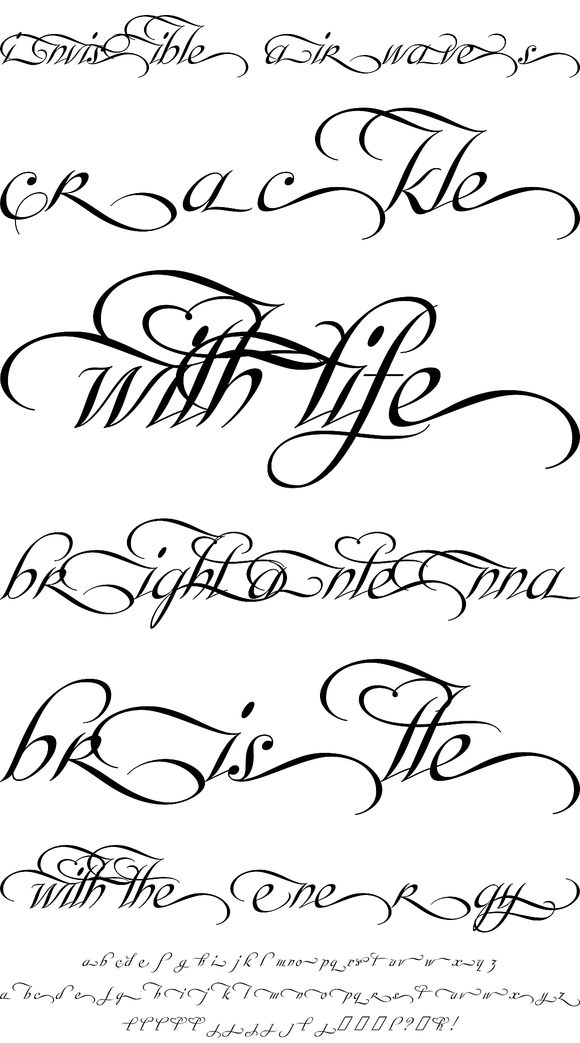
Monte Cristo
Monte Cristo picks up where Libertine left off, then makes a great leap forward to attain its luxuriously seductive personality. With a minimum of 4 variations on the uppercase letters, and up to 38 variations on the lowercase, the application possibilities with this script are enormous. Monte Cristo offers a huge variety of letter shapes, from simple alternate forms, to multiple beginning and ending letters, ligatures, and exhuberantly swashed and ornamented variants. This flexibility goes way beyond the 20 different stylistic sets permissible in OT fonts, to include a massive map of over 1630 characters, and options for different ways of connectivity, or none at all.
Monte Cristo comes in five interchangeable fonts, or in a complete set that includes an additional font loaded with extra alternates, and a Pro OpenType font that is the epitome of decadent, feature-laden digital calligraphy. Your next packaging project, wine label and entertainment cover are going to be a lot of fun.